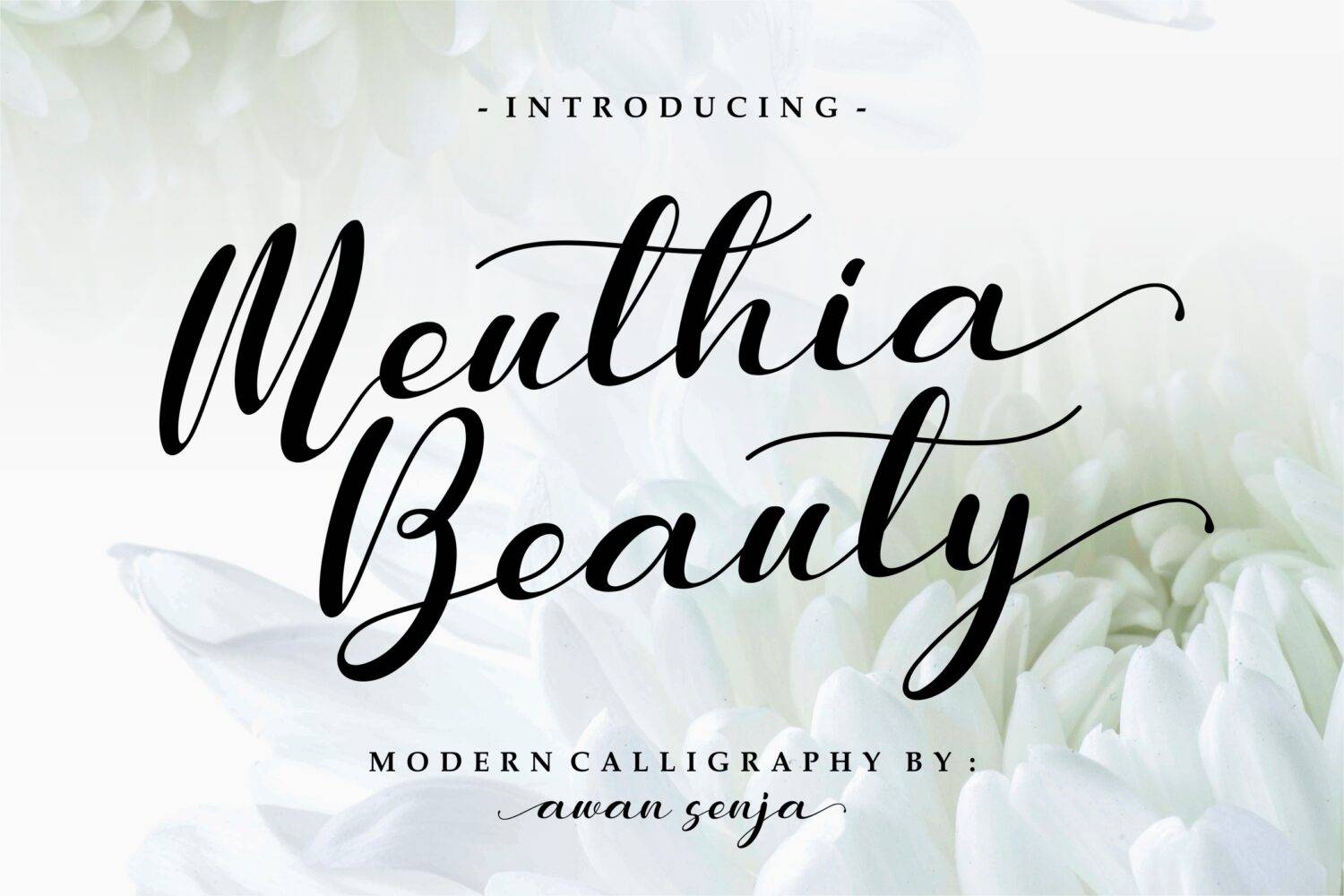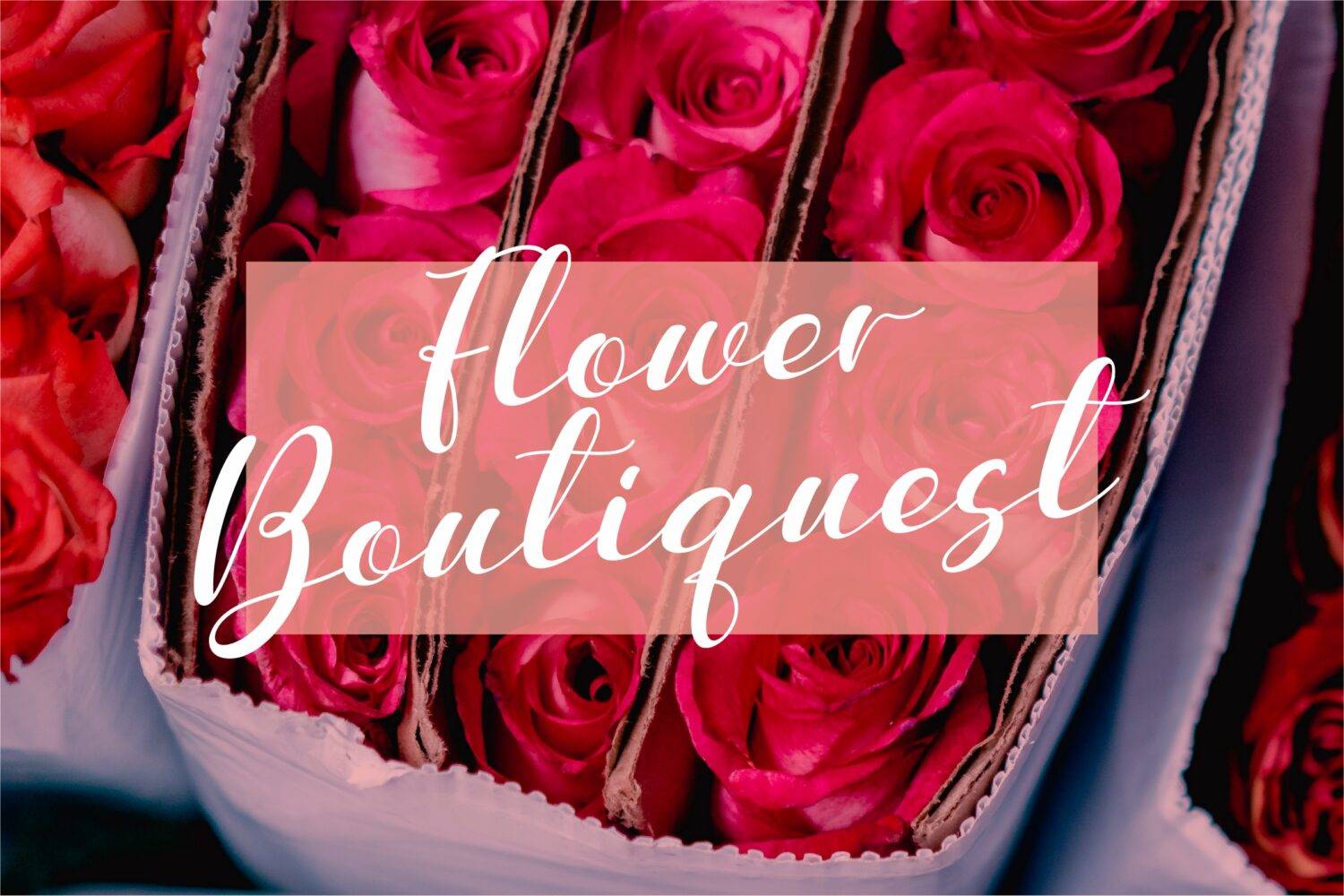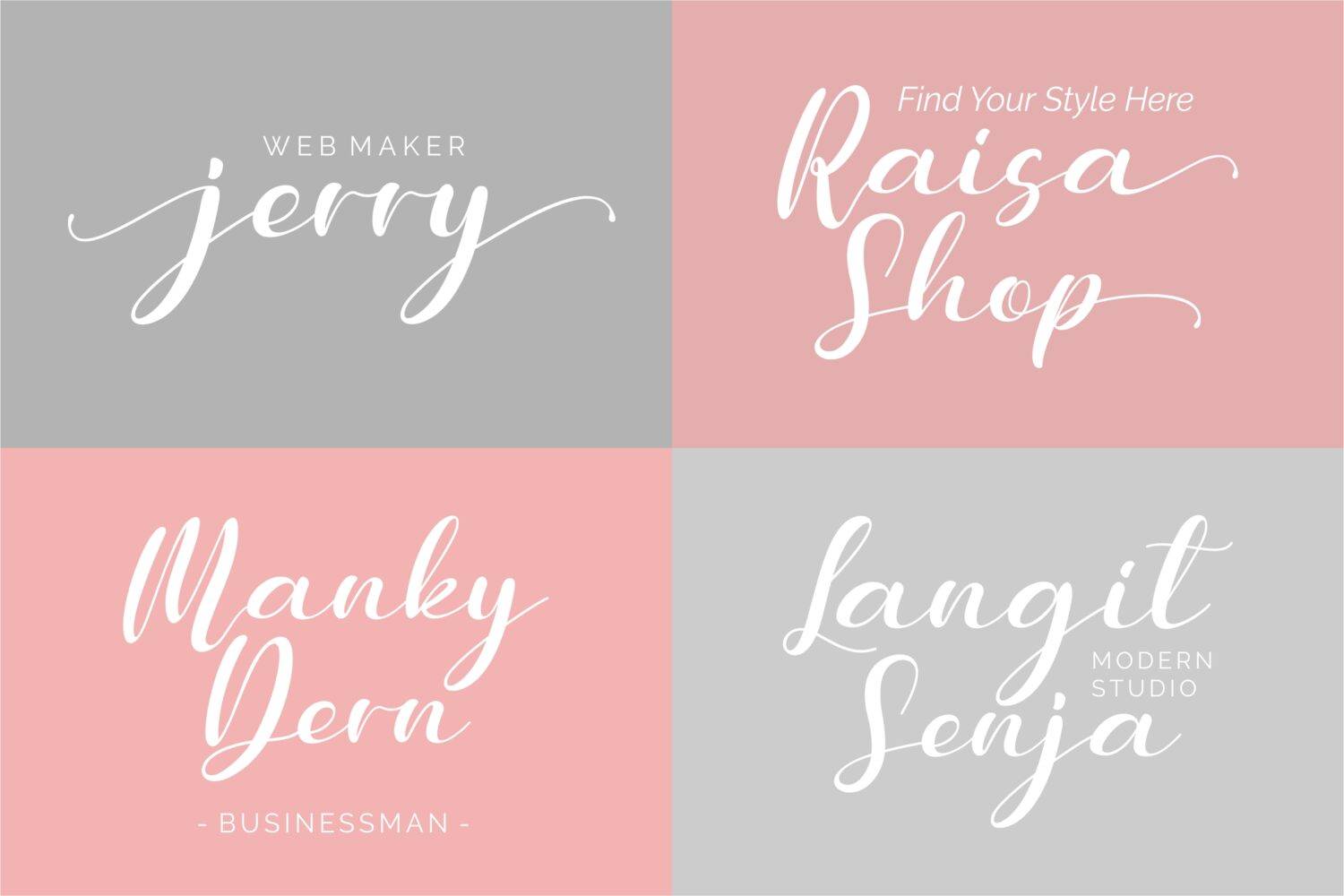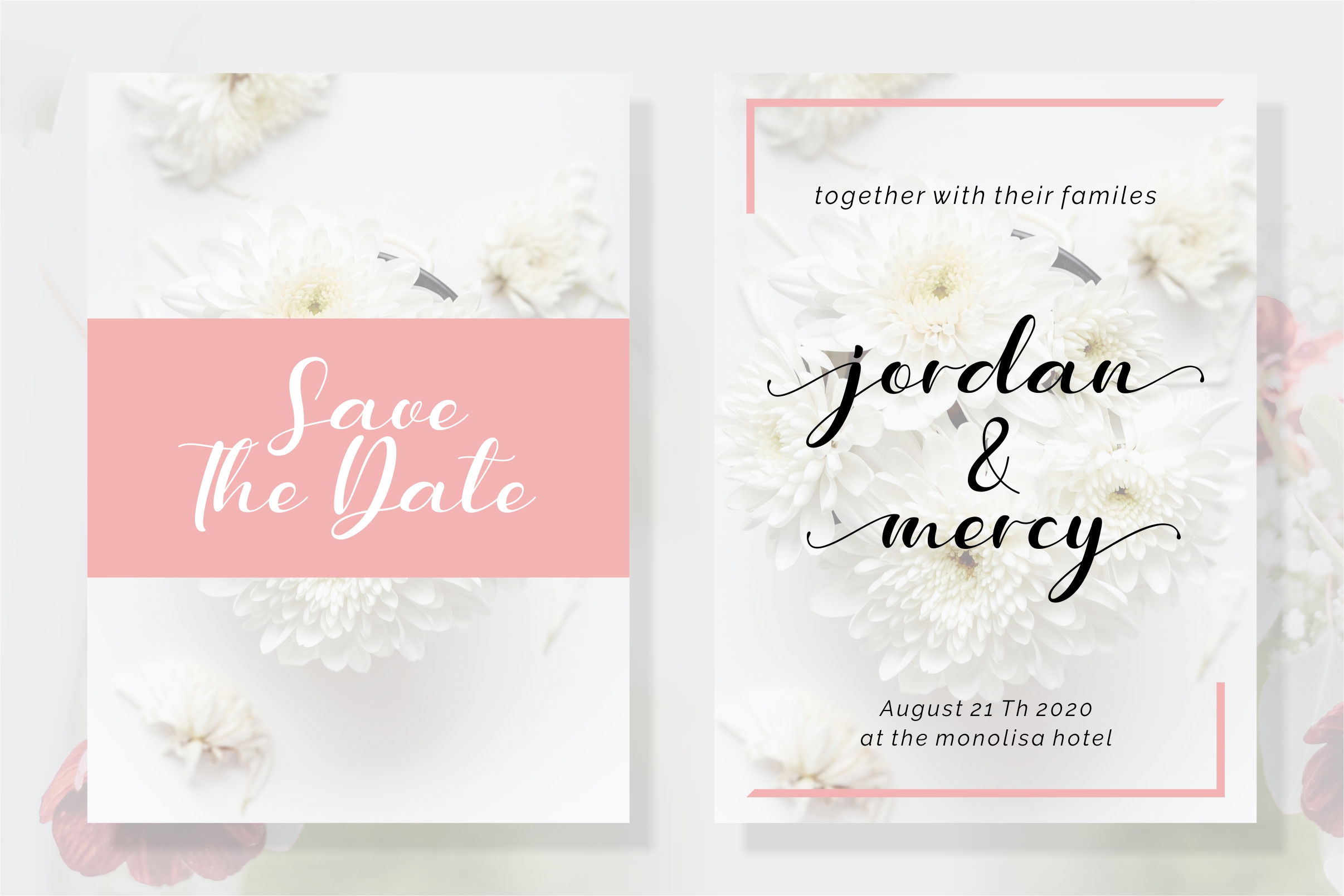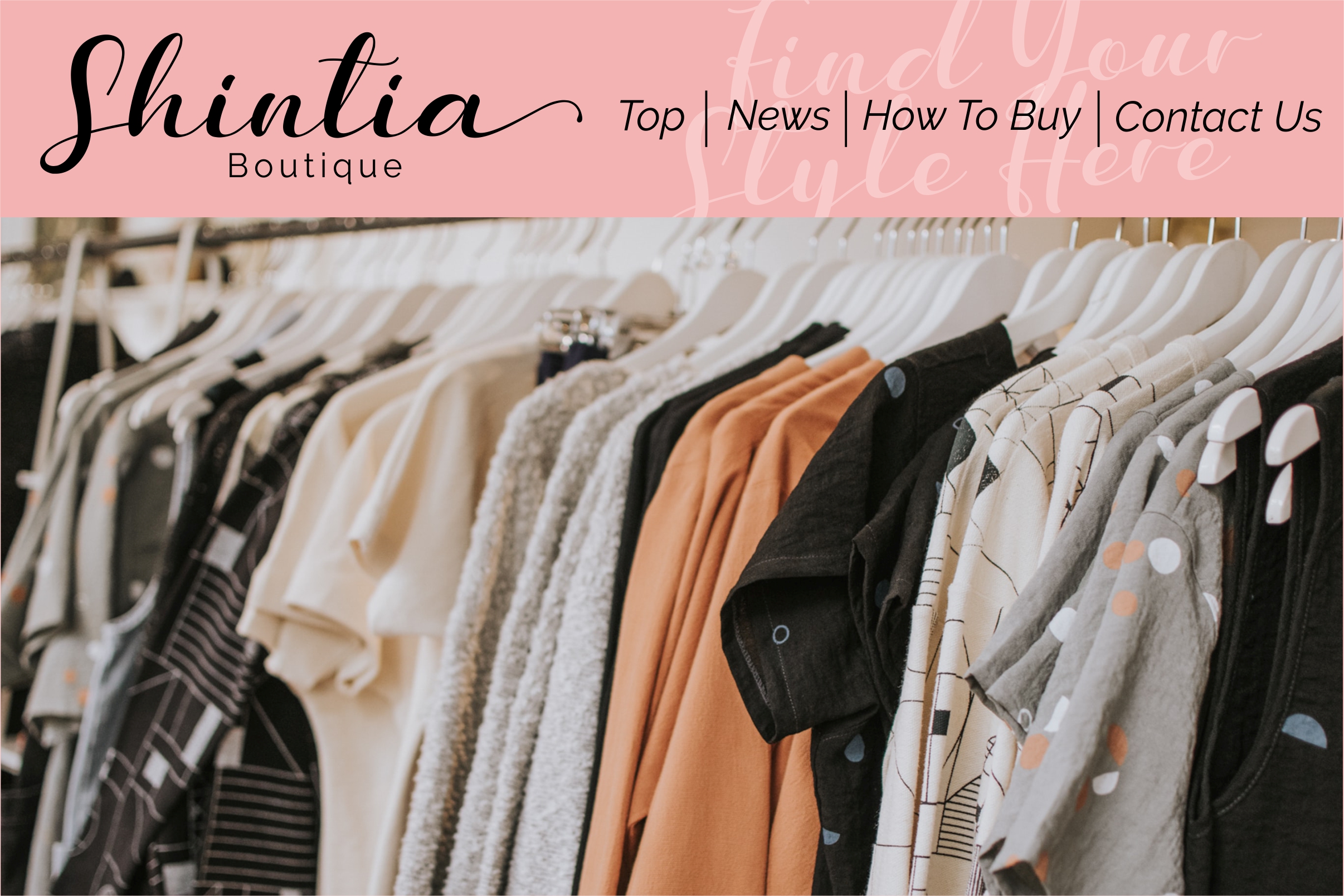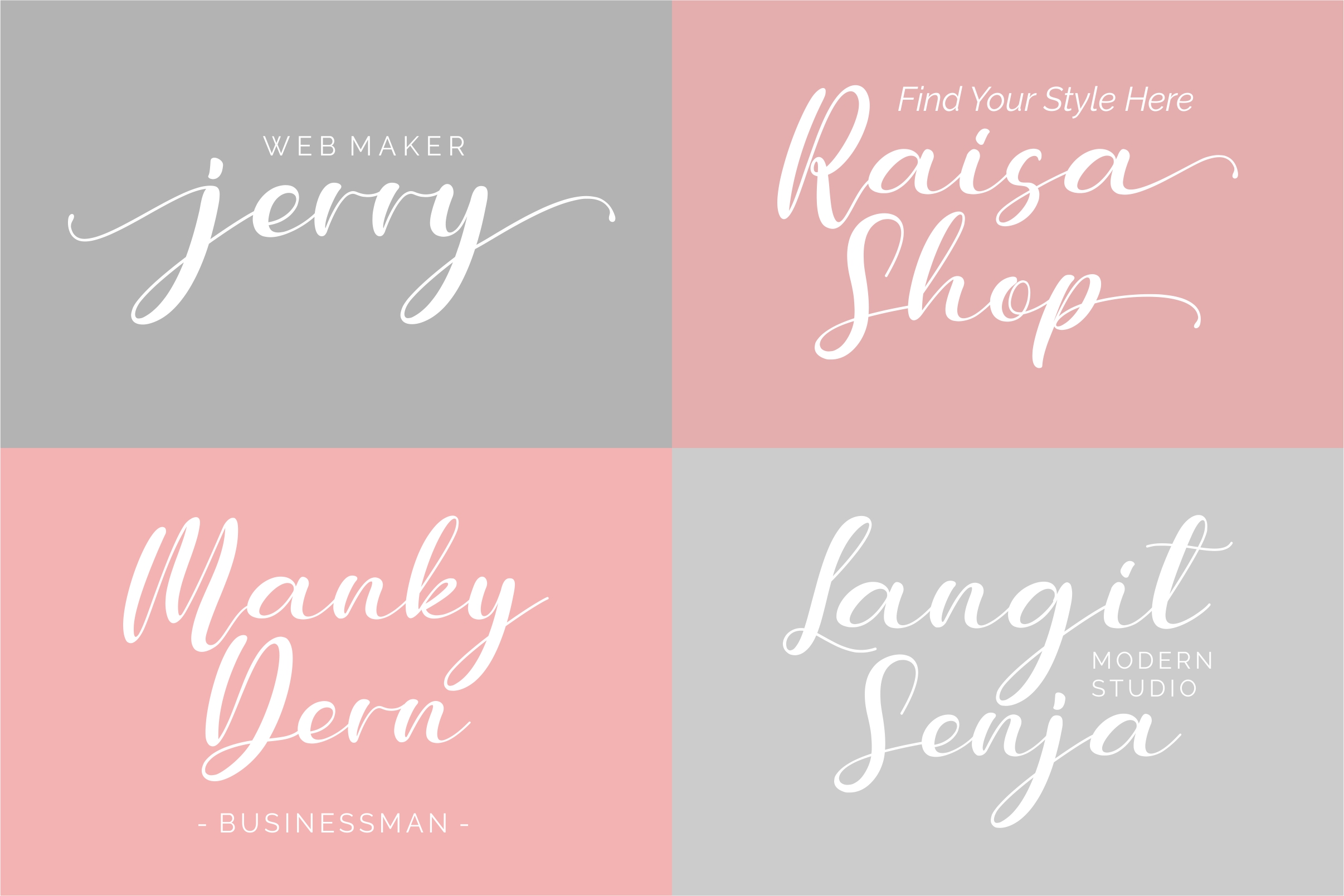
Meuthia Beauty is a stylish script font with elegant, flowing strokes and a refined calligraphic feel that makes it perfect for luxury branding and sophisticated design projects. Its slender, smooth lines and delicate curves create a graceful, feminine appearance ideal for invitations, logos, and fashion-related uses. This font’s airy, handwritten charm adds a personal touch while maintaining readability in larger display settings.
Meuthia Beauty Font
About Meuthia Beauty Font
| Font family | Meuthia Beauty Font |
| Designer | Awan Senja Tim |